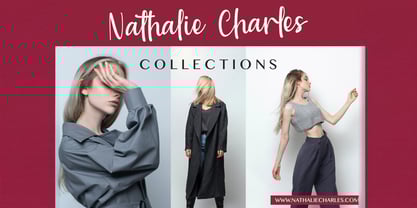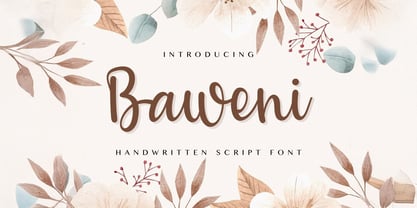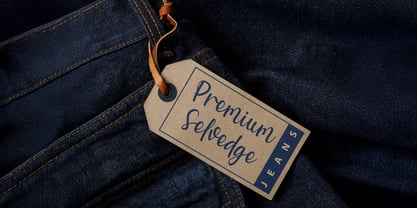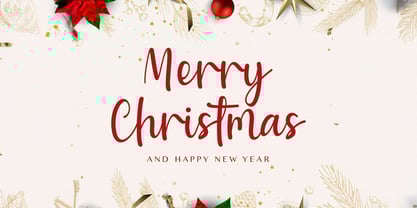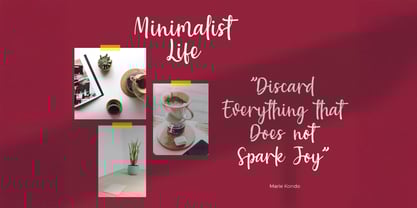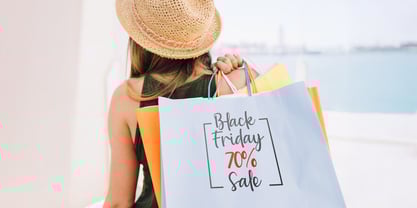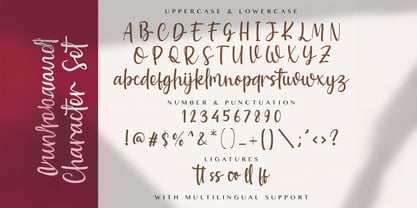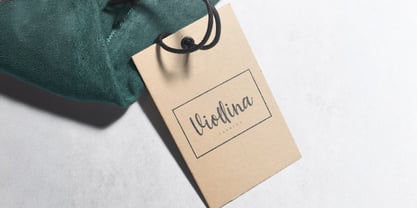
Die Schriftfamilie Baweni wurde von Virgiawan Listanto entworfen und von Stringlabs Creative Studio veröffentlicht. Baweni enthält 1 Stile. Mehr über diese Familie
Baweni is a beautifully crafted handwritten script font that exudes elegance and charm. With its flowing, graceful strokes and sophisticated style, Baweni brings a personal and artistic touch to your designs. The smooth and stylish curves of Baweni ensure that it stands out while maintaining excellent legibility, making it perfect for both large and small text.